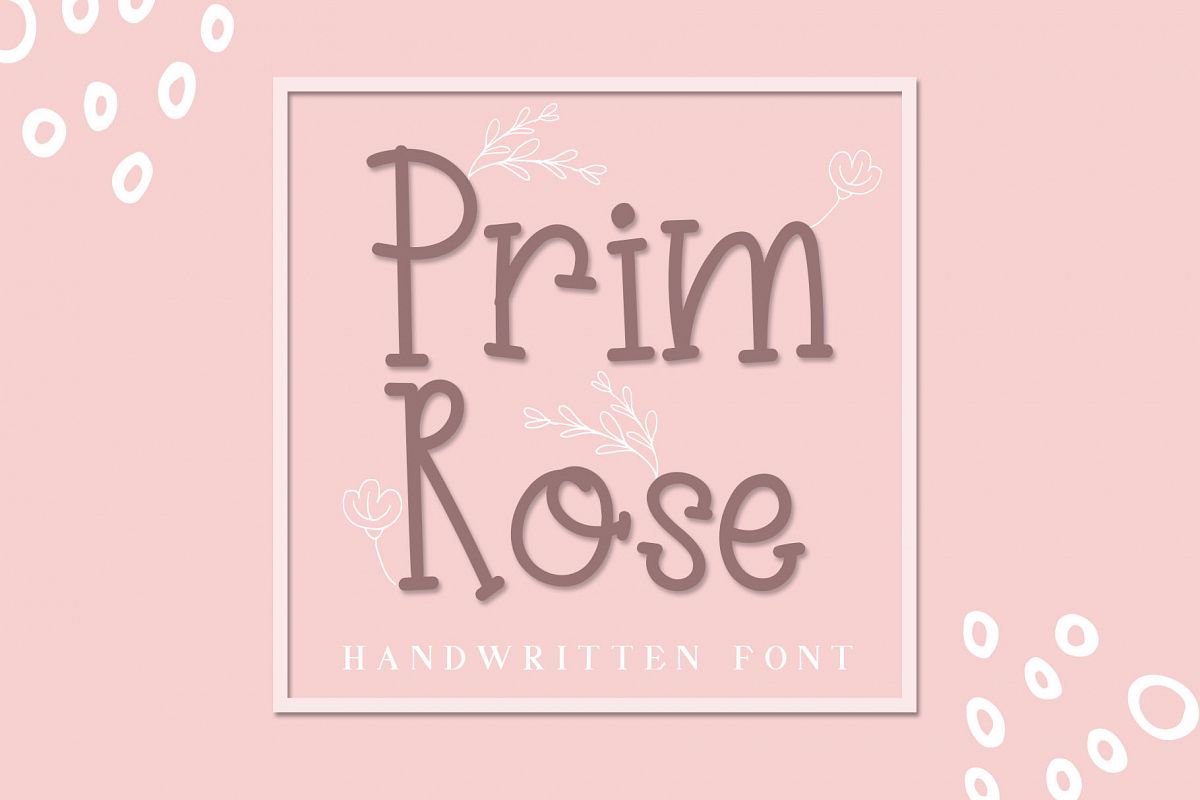
Introducing, this lovely PRIM ROSE Handwritten Font !
Lovely day is come closer! Give your dearest one a love letter, a
cute card, and some cute things using this lovely font!
Comes in regular and alternated style ( it has a little 'love' inside
for the lowercase ). You'll also get extra handdrawn elements to
inserted in your crafts!